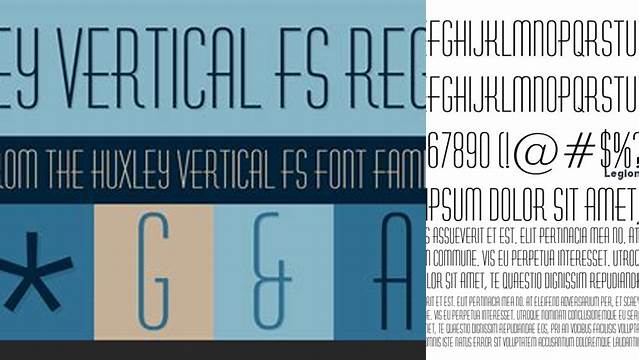
Hey guys! Are you on the hunt for a modern and stylish font? Look no further! In this article, we're diving deep into the Huxley Vertical font family, exploring everything from its unique characteristics to where you can snag it for free. We'll cover licensing details, optimal usage scenarios, and even some tips on how to pair it with other fonts. So, let's get started and unlock the potential of Huxley Vertical!
1. Huxley Vertical: What Makes It Special?
Huxley Vertical isn't just another font; it's a statement. Its sleek, contemporary design makes it perfect for projects that demand a touch of sophistication. The vertical emphasis gives it a unique edge, making it stand out from the crowd. Whether you're designing a logo, crafting a website, or creating marketing materials, Huxley Vertical can elevate your work. But what exactly makes this font so special? Well, it's all in the details. The clean lines, the precise letterforms, and the overall balance contribute to a visually appealing typeface that’s both modern and timeless. This font has a very unique character, which sets it apart from more conventional typefaces. The unique vertical structure is what truly makes Huxley Vertical stand out. This isn't your everyday font; it’s a typeface that demands attention and brings a sense of modernity to any project. When you use Huxley Vertical, you're not just choosing a font; you're choosing a design element that adds character and flair to your visual communication. And hey, that's what makes it so awesome!
4. Huxley Vertical Font Family Variations
One of the coolest things about the Huxley Vertical font family is the variety it offers. Different weights, styles, and even widths can give you a ton of flexibility in your designs. We’ll take a look at the various styles available and how you can use them to create visual hierarchy and interest in your projects. Think about using different weights to emphasize headings or subheadings, creating a clear visual flow for your audience. Maybe you want the bold version for eye-catching titles or the light version for body text that's easy on the eyes. The Huxley Vertical font family comes in several weights, ranging from thin and light to bold and extra bold. Each weight offers a slightly different feel, allowing you to create diverse visual effects. For example, a lighter weight might be perfect for body text, while a bolder weight could be used for headlines and titles. There might also be italic versions, which can add emphasis or a touch of elegance to your design. The variations within the family mean you can maintain a consistent look and feel across your project while still adding visual interest.
5. Best Uses for Huxley Vertical in Design Projects
So, where does Huxley Vertical really shine? This font is incredibly versatile, but it's particularly well-suited for certain types of projects. We'll explore the best use cases, from branding and logos to web design and print materials. Consider how its modern aesthetic can enhance a brand identity or how its readability makes it a great choice for website headers. The key is to think about the overall message you want to convey and how Huxley Vertical can help you achieve that. Huxley Vertical excels in projects where a modern and sophisticated feel is desired. Think of sleek logos, contemporary websites, or minimalist print designs. Its vertical emphasis makes it particularly effective for headlines and titles, grabbing attention and making a statement. However, it can also be used in body text if you choose a lighter weight and ensure adequate spacing for readability. The key is to use it judiciously and in contexts where its unique character will shine. Huxley Vertical is great for making a statement, but it's even better when used thoughtfully and strategically.
6. Font Pairing: Complementing Huxley Vertical with Other Fonts
No font exists in a vacuum! Choosing the right fonts to pair with Huxley Vertical can make all the difference in your designs. We'll share some tips on font pairing, suggesting fonts that complement Huxley Vertical's style and enhance its impact. Think about creating contrast while maintaining harmony. Pairing a sans-serif like Huxley Vertical with a serif font, for example, can create a balanced and visually appealing composition. The trick is to find fonts that share a similar tone or mood, even if they have different styles. Pairing fonts is an art, and it’s all about creating a harmonious visual experience. For instance, you might pair Huxley Vertical with a classic serif font like Garamond for a sophisticated contrast, or with a more geometric sans-serif like Montserrat for a cohesive modern look. The goal is to create visual interest without overwhelming the eye. Consider the mood you want to evoke and choose fonts that work together to convey that feeling. Experimenting with different pairings is key to finding the perfect match for Huxley Vertical in your designs. Remember, the fonts you choose speak volumes about your design sensibility.
9. Huxley Vertical and Web Design: A Perfect Match?
Is Huxley Vertical a good choice for web design? Absolutely! We'll discuss how you can use this font to create a modern and engaging website. From headings and navigation to body text, we'll explore the best ways to incorporate Huxley Vertical into your web projects. Think about how its clean lines can enhance the user experience and how its unique character can make your website stand out. However, remember to consider readability and load times when using custom fonts on the web. This is crucial for creating a visually appealing and user-friendly website. Huxley Vertical can add a touch of sophistication to website headers and titles, making a strong first impression. When using it for body text, ensure that you select a lighter weight and appropriate size for optimal readability. Consider using CSS to control font rendering and ensure consistency across different browsers. Web font formats like WOFF and WOFF2 are optimized for web use and can help reduce page load times. Choosing the right font for your website is an important decision, and Huxley Vertical can be a fantastic choice if used thoughtfully.